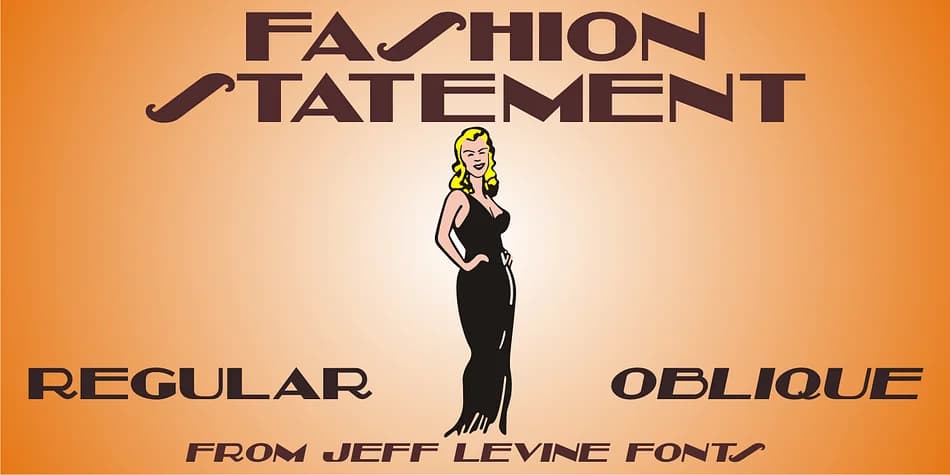
About FASHION STATEMENT JNL Font
FASHION STATEMENT JNL by Jeff Levine Fonts is a hand-lettered Art Deco display typeface sourced from vintage instructional lettering and design principles. The design captures that distinctive thick-and-thin stroke contrast which made 1920s and 1930s signage so visually commanding and enduringly influential. With both upright and oblique versions available, you have flexibility for headlines, large-format display work, and any project demanding authentic period accuracy, visual flair, and genuine character.
Use it for luxury product packaging and vintage-themed wedding invitation suites, or bring authentic 1920s character to retro speakeasy branding campaigns and theater lobby posters. High-end cosmetics labels, art gallery displays, and storefront signage for boutique restaurants all benefit from its dramatic letterforms and commanding presence. Event invitation sets with vintage ambitions and marquee designs each gain visual authority and authenticity without feeling like a modern pastiche or imitation attempt.
The extra-wide letterforms and variable stroke weights give the font genuine personality, movement, and visual impact that demands attention from any viewer. It catches the eye immediately and makes headlines land hard and memorable in any application or display context you can imagine. Find FASHION STATEMENT JNL on Creative Fabrica and bring sophisticated vintage glamour to your next design project.
FASHION STATEMENT JNL Font is a decorative font that shines as a display or heading face. Pair it with a clean sans-serif or serif font for body text β the contrast creates a clear hierarchy while the two styles stay balanced and easy to read.